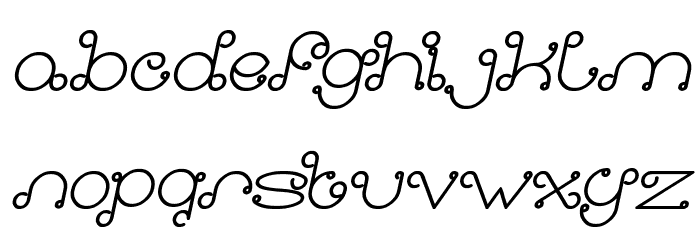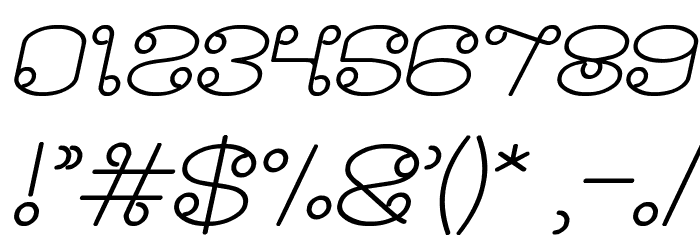
Modern Aristocrat Bold Italic Font
This font features a unique and decorative style with a modern twist. Each character is designed with a continuous line that loops and curves, creating an elegant and playful appearance. The bold and italic nature of the font adds a dynamic and sophisticated touch, making it stand out in any design. The characters are well-spaced, ensuring readability while maintaining their artistic flair. The font includes a full set of uppercase and lowercase letters, numbers, and a variety of special characters, making it versatile for various design needs.
A bold, italic, and decorative font with looping, continuous lines.
- Font: Modern Aristocrat Bold Italic
- Proposed Projects: Ideal for branding, invitations, posters, and creative projects that require a touch of elegance and modernity.
- Overall Style: Modern, Decorative
- Use Case: Headlines, Logos, Invitations